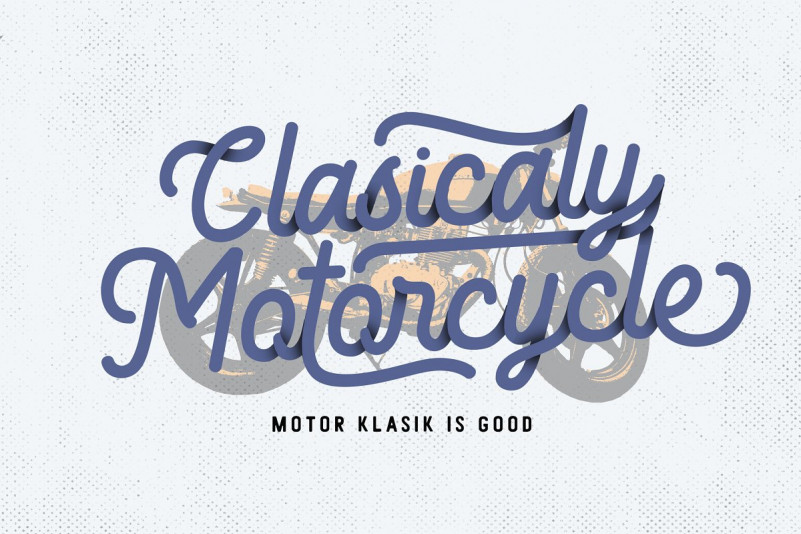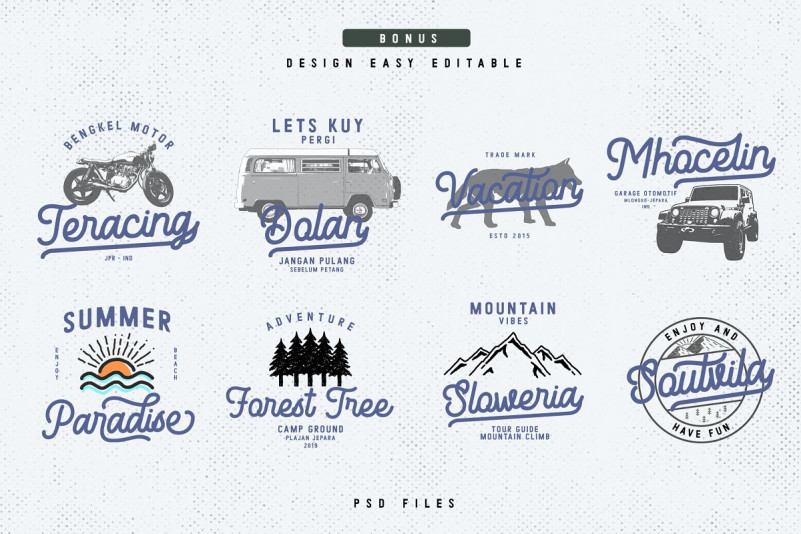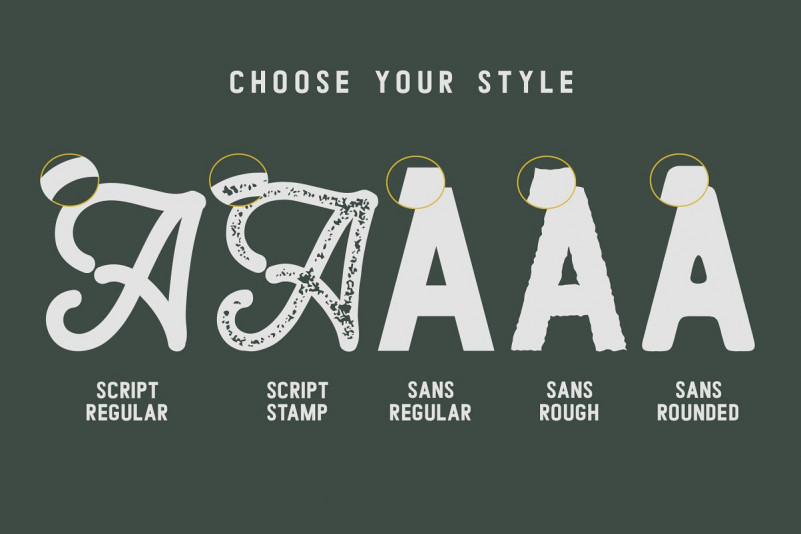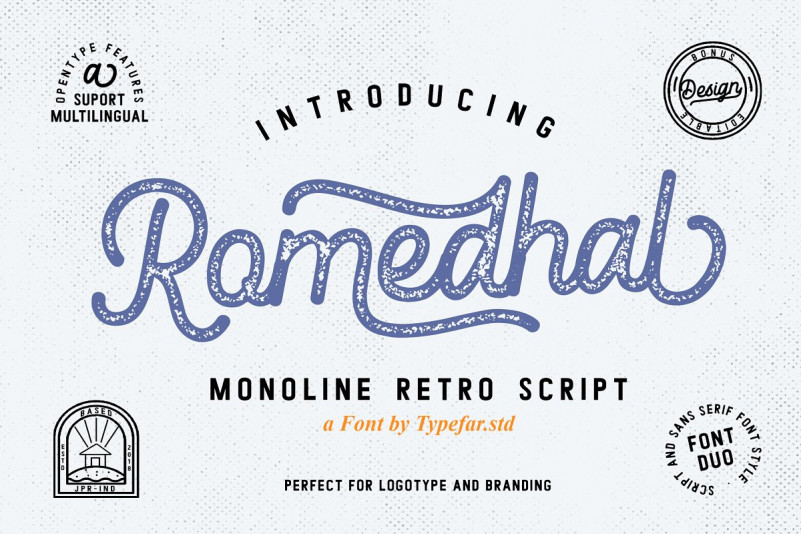
Romedhal Script Demo Font
This is a new vintage script font, this monoline typeface will bring you to the good ol’ days with its classic touch! Introducing Romedhal Font. Romedhal sans serif and monoline retro scipt. Romedhal fonts are suitable for branding designs and logos. there is bonus design with a PSD file that is easy to edit. very suitable for application on t-shirts, merchandise or for your business logo